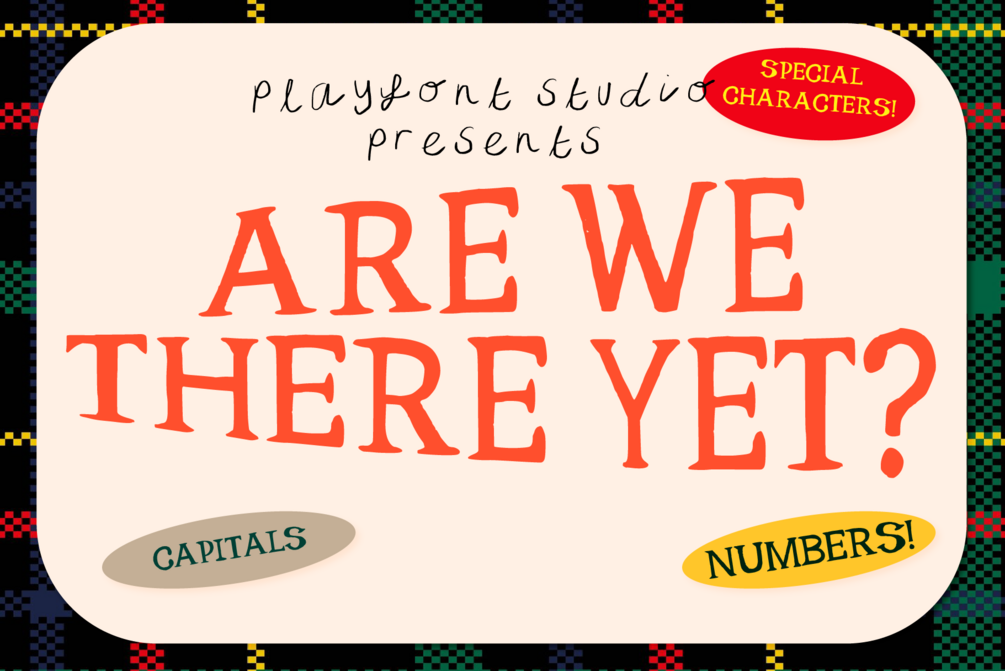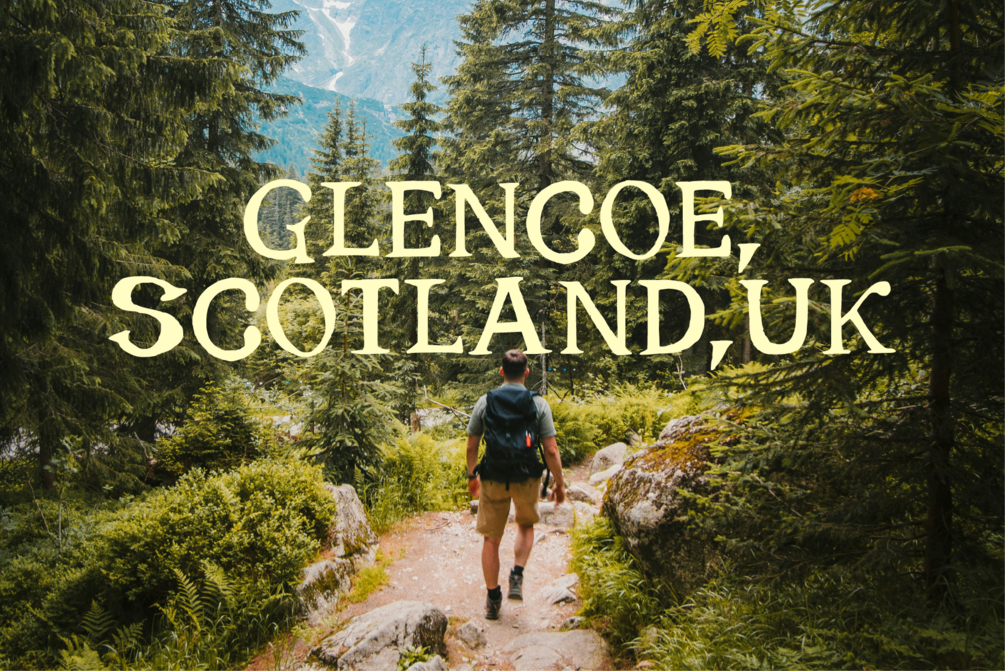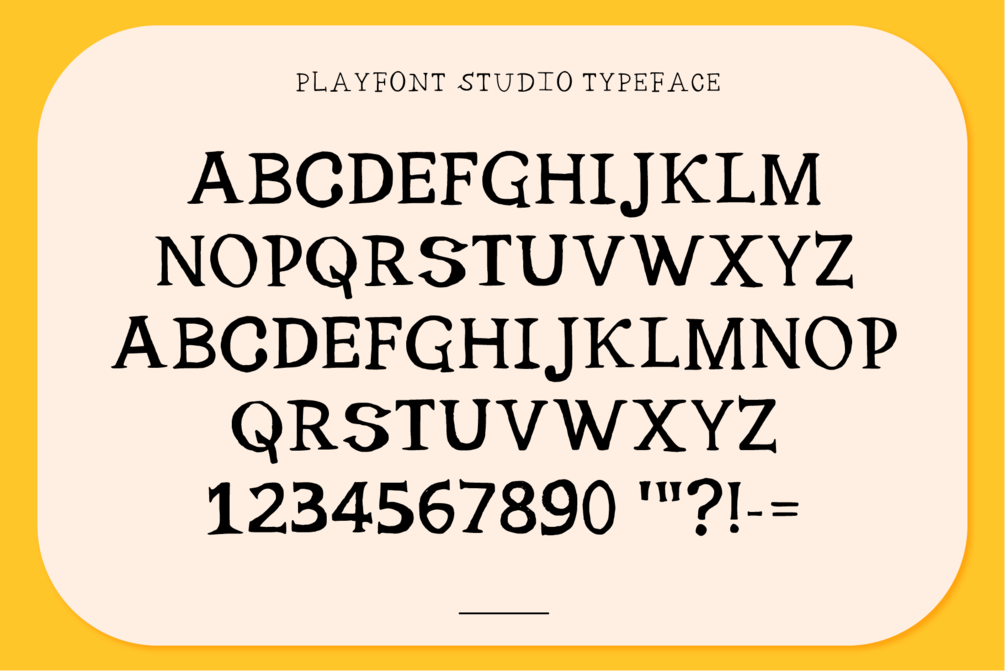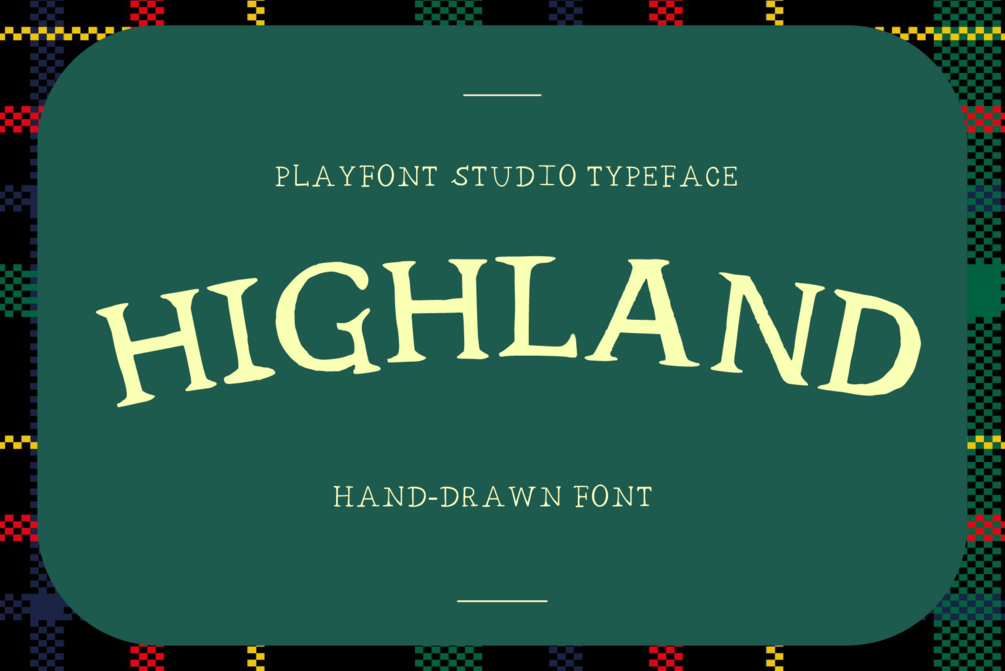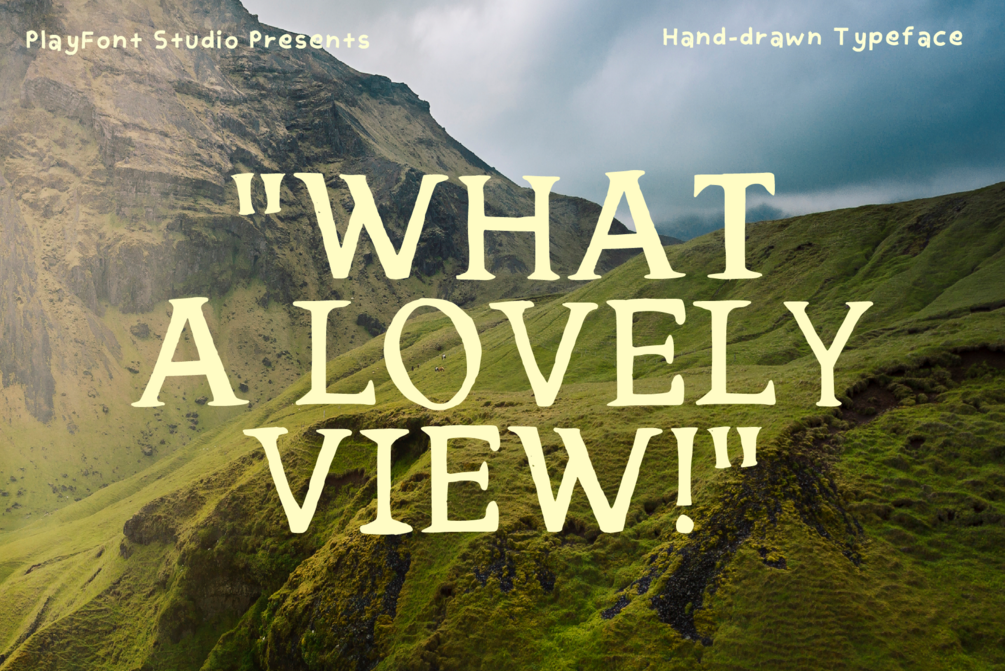
Highland - A Handmade Typeface
Introducing Highland, a font that echoes the rugged beauty of the Scottish Highlands. Perfect for adventurous YouTubers who capture the untamed outdoors, this typeface blends majestic serifs with wind-swept curves. Each letter carries the spirit of misty glens, ancient castles, and rolling hills—a typographic journey through heather-clad landscapes.
What’s in the font? Uppercase Letters A-Z! Numbers! Symbols! Punctuation!
Whether you’re vlogging about misty lochs, bagpipe melodies, or epic hikes, Highland invites you to infuse your content with the wild heartbeat of Scotland. 🏴󠁧󠁢󠁳󠁣󠁴󠁿🌿✨